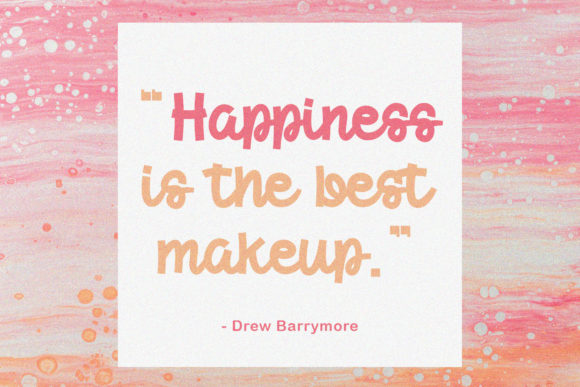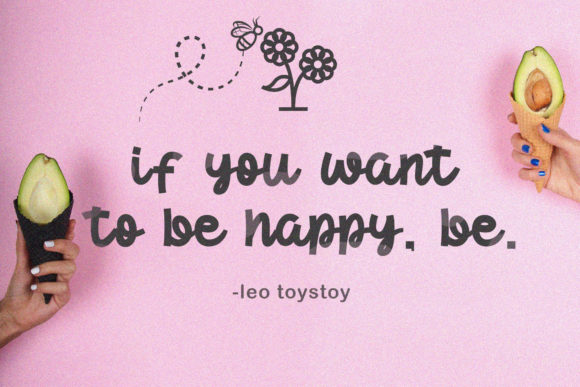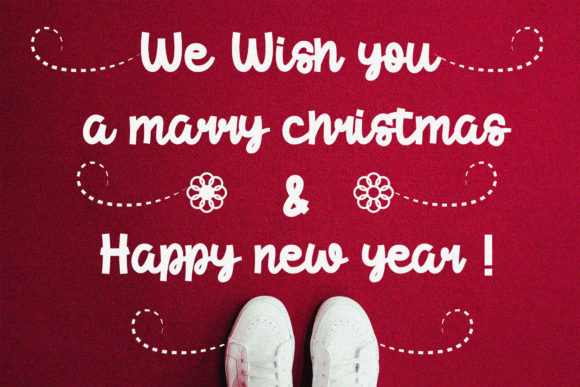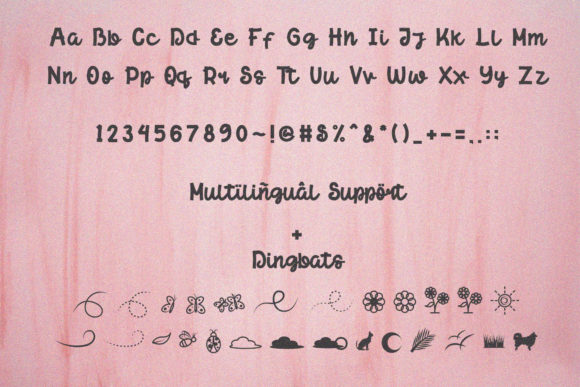
Introduction to Lithunoa Font
Lithunoa is a lovely duo font (display and dingbats).
It has an incredibly interesting style and it is the ideal choice for a wide range of casual or informal designs Whether youโre using it for crafting, digital designing, presentations or greeting cards making, itโs perfect.
Key Features of Lithunoa Font